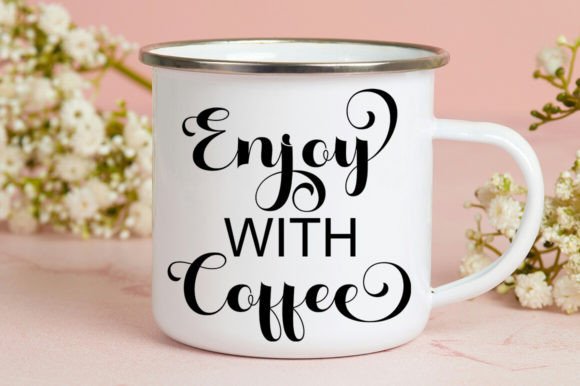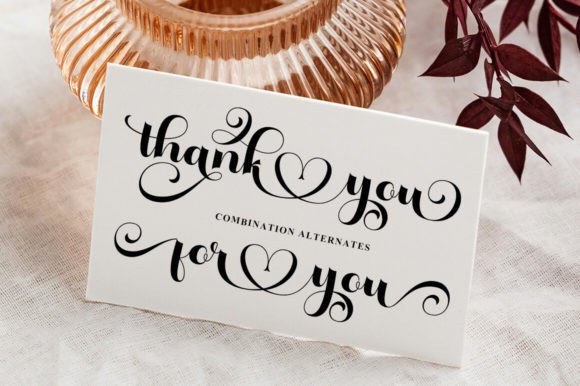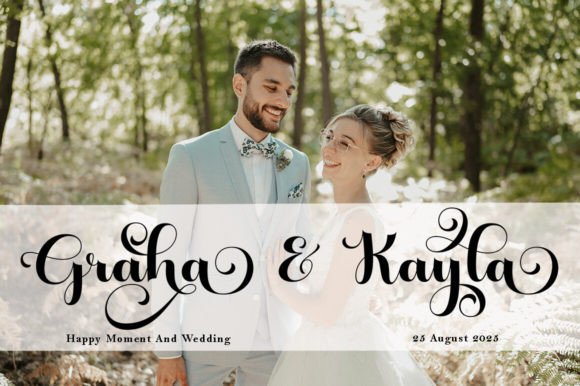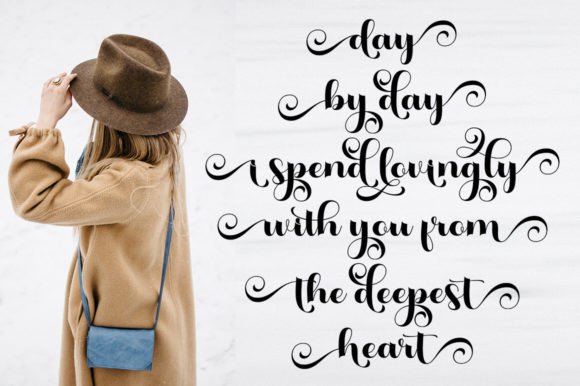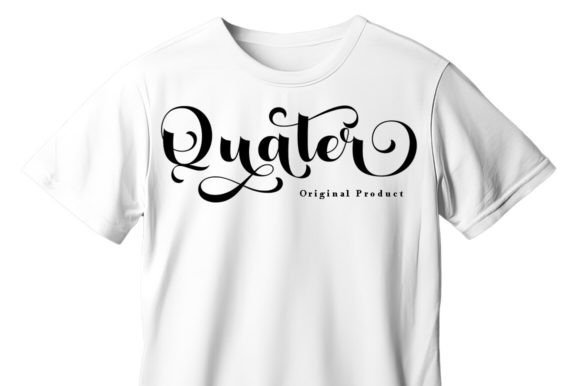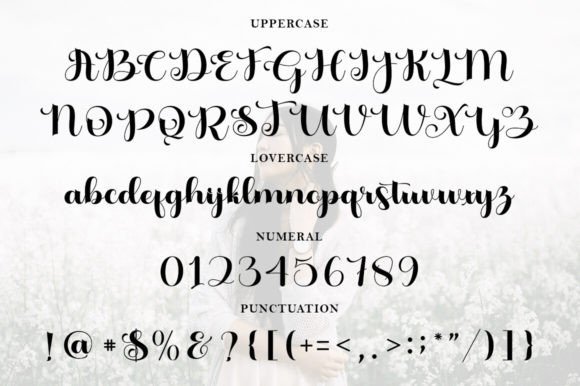
Discover the Charm of Arista Font: A Delightful Handwritten Typeface
In the world of typography, few fonts manage to convey the warmth and personality that Arista Font embodies. This delightful handwritten font is designed to bring a sense of authenticity and charm to any design project. With its whimsical strokes and varied letterforms, Arista Font is perfect for designers and crafters looking to add a personal touch to their work.
The Characteristics of Arista Font
Arista Font is a beautifully crafted handwritten typeface that boasts a range of characteristics that set it apart from other fonts. Its most notable features include:
- Whimsical strokes: Arista Font’s strokes are playful and varied, giving the font a sense of movement and energy.
- Varied letterforms: Each letter in the Arista Font has its own unique personality, making the font perfect for conveying heartfelt messages.
- Warmth and personality: The font’s warm and inviting tone makes it perfect for designs that require a personal touch.
Uses for Arista Font
Arista Font’s versatility makes it suitable for a wide range of design projects. Here are some of the most popular uses for this delightful font:
- Invitations: Arista Font is perfect for creating beautiful and unique invitations for weddings, parties, and other special occasions.
- Greeting cards: The font’s warm and personal tone makes it ideal for creating heartfelt greeting cards for birthdays, holidays, and other celebrations.
- Branding: Arista Font can add a touch of personality to any brand, making it perfect for businesses looking to stand out from the crowd.
- Stationery: The font’s whimsical strokes and varied letterforms make it perfect for creating custom stationery, such as notebooks, journals, and letterheads.
Tips for Using Arista Font
To get the most out of Arista Font, here are some tips to keep in mind:
- Pair with complementary fonts: Arista Font pairs well with clean and simple fonts, such as Arial or Helvetica, to create a striking contrast.
- Use for headlines and body text: The font’s readability makes it suitable for both headlines and body text, making it perfect for a wide range of design projects.
- Experiment with colors: Arista Font looks great in a range of colors, from bold and bright to soft and pastel.
Why Designers and Crafters Love Arista Font
Arista Font has quickly become a favorite among designers and crafters, and for good reason. Here are some of the reasons why:
- Unique and authentic: The font’s handmade feel and unique letterforms make it perfect for designers and crafters looking to add a personal touch to their work.
- Easy to read: Despite its whimsical nature, Arista Font is surprisingly easy to read, making it perfect for designs that require a lot of text.
- Versatile: The font’s versatility makes it suitable for a wide range of design projects, from invitations and greeting cards to branding and stationery.
Arista Font is a delightful handwritten font that is sure to bring warmth and personality to any design project. With its whimsical strokes, varied letterforms, and authentic feel, it’s perfect for designers and crafters looking to add a personal touch to their work. Whether used for invitations, greeting cards, branding, or stationery, Arista Font is a versatile and beautiful typeface that is sure to impress.